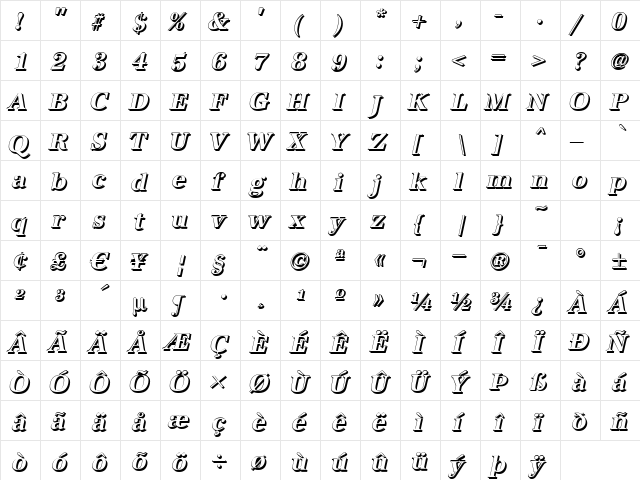
AntiquaSh BoldItalic
Design Context for AntiquaSh Typeface
AntiquaSh offers clean, dependable letterforms without strong stylistic allegiance, making it a practical choice for designers who need flexibility. The slanted form adds forward momentum and visual energy. The heavy weight commands attention and anchors typographic hierarchies.
Pro Tip: Use AntiquaSh for emphasis, pull quotes, and subheadings where its slanted energy can add rhythm to the layout.